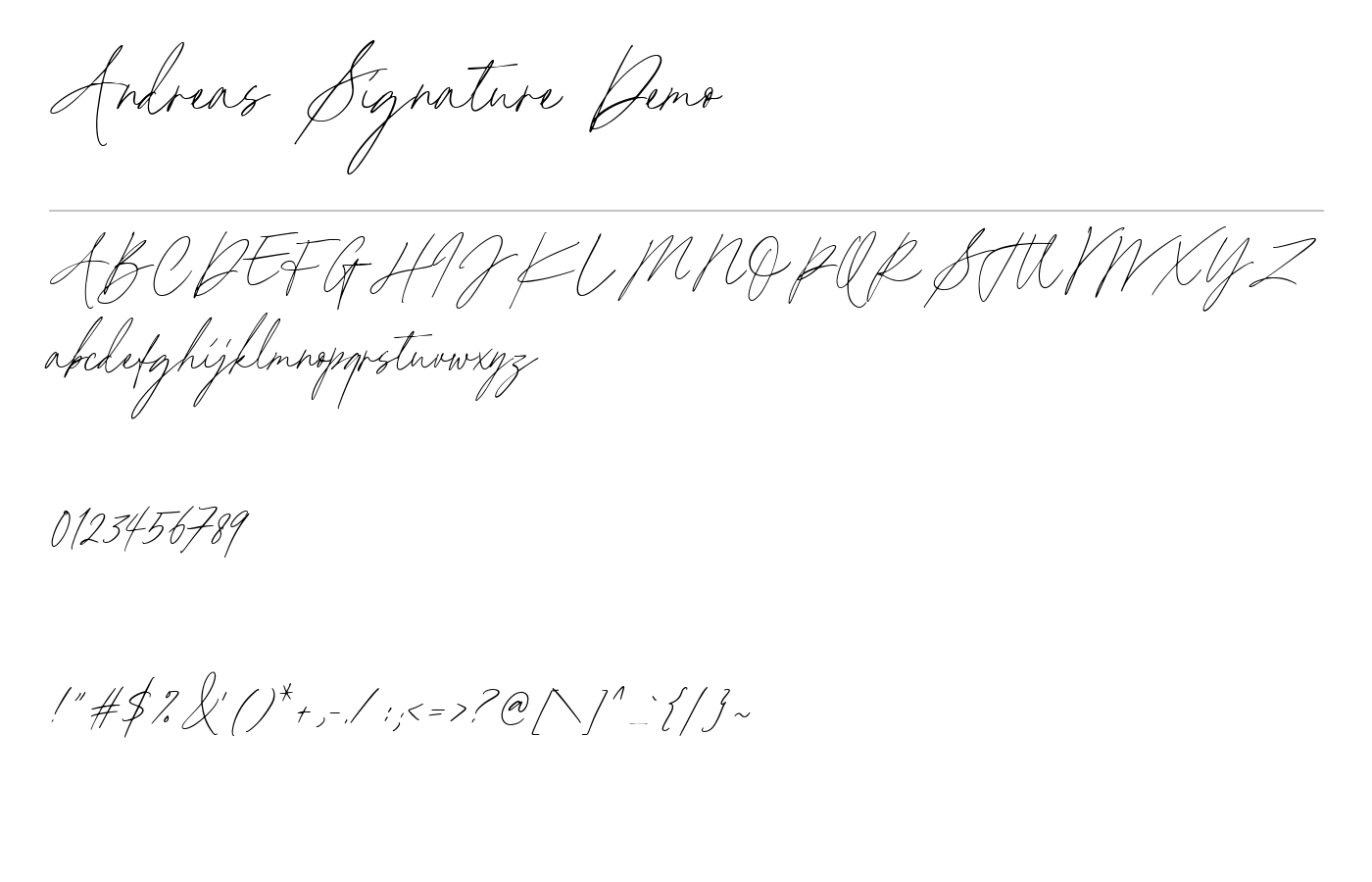
Andreas Signature Demo is a delicate, handwritten script font that mimics elegant, flowing penmanship with its light, slender strokes and high x-height. Its airy, casual style with a natural, personal touch is perfect for creating sophisticated yet approachable branding, invitations, and stylish logos. This font works best where a refined, intimate feel is desired, adding a sense of authenticity and grace.
Andreas Signature Demo Font
About Andreas Signature Demo Font
| Designer | Sarid Ezra |